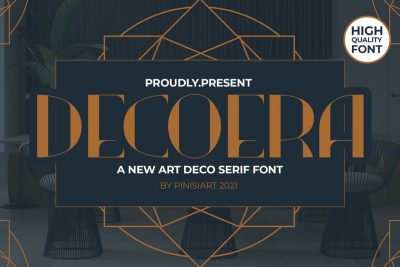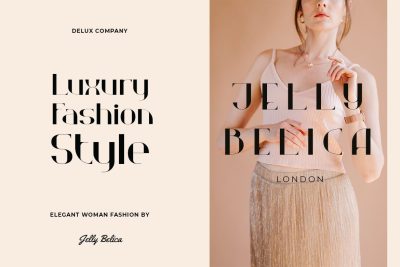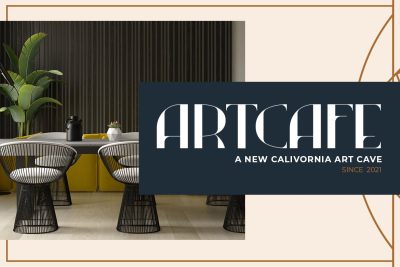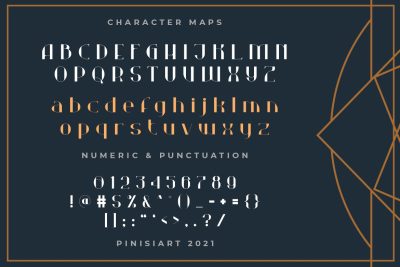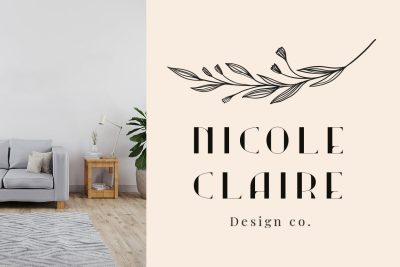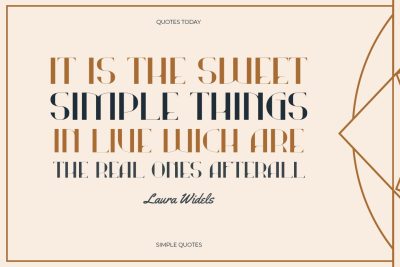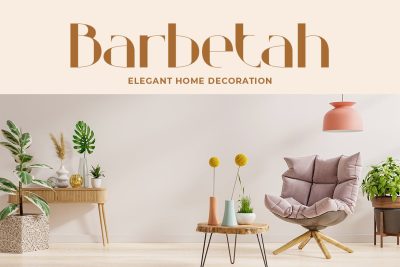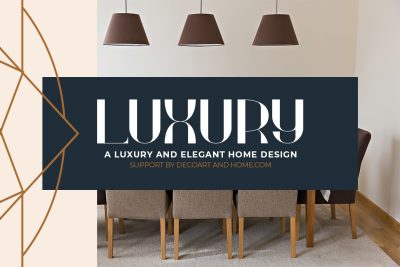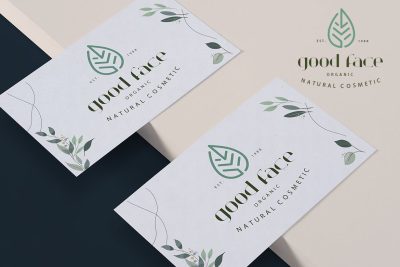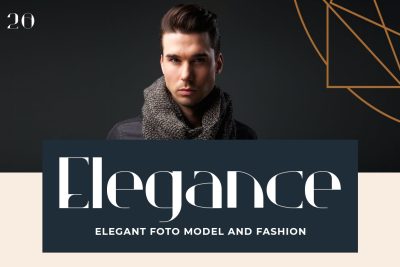
Retro Font DECOERA
DECOERA
Retro Font DECOERA is a stunning Art Deco serif typeface that brings the elegance and sophistication of the 1920s and 1930s into the modern design world. Moreover, with its sharp geometric forms, clean lines, and balanced proportions, DECOERA is perfect for anyone looking to infuse their projects with a touch of vintage luxury. The fontโ€™s bold yet graceful curves exude confidence. Therefore, it is ideal for headlines, logos, branding, and editorial layouts. Designed with versatility in mind, DECOERA offers a unique aesthetic that stands out in both print and digital formats. Furthermore, its intricate details and timeless appeal ensure that every design using this font will leave a lasting impression.
The fontโ€™s stylish characters reflect the grandeur of the Art Deco era. Specifically, they are inspired by architectural marvels, luxurious fashion, and vintage typography. DECOERA combines tradition with a contemporary edge. As a result, it is a highly versatile choice for diverse creative projects. Whether you’re crafting an elegant wedding invitation, a bold advertisement, or a classy website header, DECOERA provides a refined, professional finish that captures attention and evokes nostalgia.
Retro Font DECOERA Who Is It For?
DECOERA is perfect for graphic designers, branding experts, and content creators who appreciate the charm of vintage design. Additionally, itโ€™s ideal for those seeking a font that reflects their high standards of creativity. Designers working on luxury branding projects, such as fashion labels, jewelry collections, or boutique hotels, will find this font elevates their work.
Event planners and stationery designers can also use DECOERA for bespoke invitations, menus, or signage for upscale gatherings. Similarly, marketing professionals can apply it to attention-grabbing social media campaigns, elegant print ads, and striking packaging design. Its bold yet intricate style communicates luxury, refinement, and exclusivity.
DECOERA also appeals to anyone working on artistic projects, including book covers, film posters, or retro-themed merchandise. In particular, its distinct Art Deco vibe makes it a go-to choice for projects requiring a sense of history and glamour. If your goal is to captivate your audience with sophistication, DECOERA is the perfect typeface for the job.
DECOERA is all about classic, elegance, and high-class vintage feel all over it. The era is a DECOERA